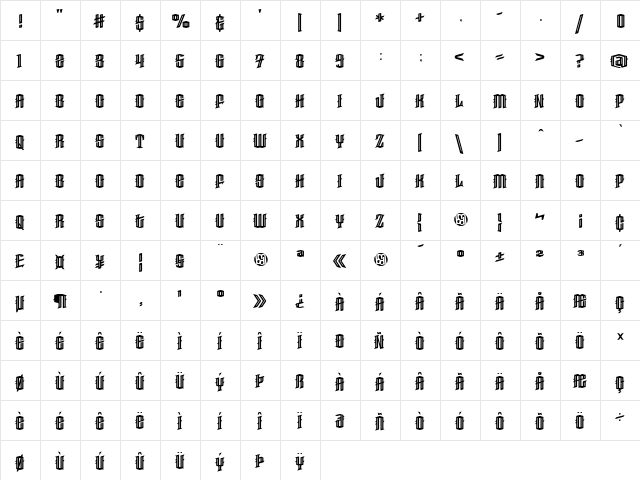
Haunted Woods Inline Demo Regular
Design Context for Haunted Woods Inline Demo Typeface
Haunted Woods Inline Demo taps into classic Western woodtype traditions — bold, characterful, and impossible to ignore.
Perfect for barbecue restaurants, country music branding, vintage poster design, and rustic packaging.
Font Pairing: Combine Haunted Woods Inline Demo with a simple slab or neutral sans — period-accurate companions reinforce the vintage feel without competing for attention.
Pro Tip: Pair Haunted Woods Inline Demo with aged textures or distressed backgrounds to amplify its vintage personality.